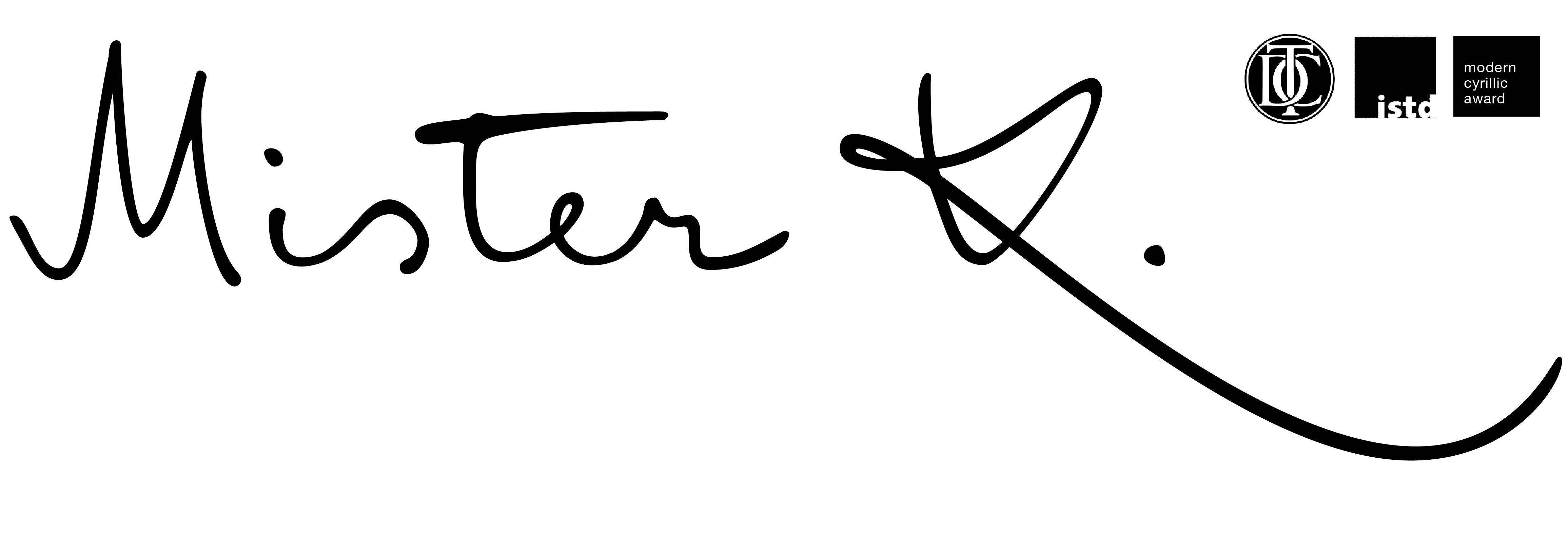
Mister K – the Franz Kafka Font
Mister K
Typeface Inspired by Franz Kafka
The FF Mister K type family originated in the manuscripts of Austro-Hungarian writer Franz Kafka (1883–1924). The name “Mister K” comes from the main characters of the novels “The Castle” and “The Trial”. Kafka had a very expressive handwriting with strong calligraphic features. The different fonts in the Mister K family reflect different moods and stages in the writer's handwriting style. All Mister K text fonts offer advanced typographic support with OT features such as alternate characters, ligatures, case-sensitive forms, fractions, superscripts and subscripts, and stylistic alternates.
FF Mister K typeface – The Core Font Styles
Mister K Regular is similar to the writing we can find in Franz Kafka‘s first drafts for the story “Metamorphosis” and the novel “The Trial”. It is a fluently connected script with frequent form variations due to an abundance of characteristic ligatures. Its look and feel is much that of a working typeface and it has only few obviously decorative elements.
In Mister K Onstage the calligraphic features are more emphasized than the Regular. Its glyphs have more contrast, they are less connected and as an option the style contains swashes for the capitals and the word endings.
FF Mister K Crossout contains every character in a crossed out version. By selecting it the user can cross out long stetches of text written with the Regular or Onstage. The effect reminds of some pages in Kafka’s manuscripts where he was obviously stuggling to find the best solution.
Kafka book series by Peter Mendelsund, for the publishing house Schocken
Franz Kafka Series by Schocken. Peter Mendelsund designed these covers for a series of Kafka pocket books. His compositions with their bright colors, powerful illustrations and headlines set in FF Mister K received a very positive echo.
Working with the manuscripts
Connected Font: FF Mister K OpenType Features
All FF Mister K fonts have OpenType features that define the behaviour of the fonts in different contexts. Most of the coding for this is in the liga and calt features. In general, it is best to leave these features on - as they are by default - as the glyph connections will work best and the overall impression will be closest to Kafka's writing styles.
Mister K Regular sample with contextual alternates and standard ligatures turned on.
Activation of Stylistic Set (InDesign) or Stylistic Alternates (Illustrator, Photoshop) leads to a set of simple, disconnected characters. They are meant mainly for abbreviations, names in all caps, formulas etc.
To ensure that glyph connections look natural FF Mister K is equipped with many alternates for one and the same character. Here some ‘a’ alternates for word beginnings and endings, medium and low connections or deliberate disconnections.
Of course: On the computer you can write without mistakes. But mistakes are human, and with Mister K you can purposely show them, as well as your corrections. See below how it’s done. The editing marks shown are available for all FF Mister K text fonts.
Crossing out a word with FF Mister K
To cross out a word hit emdash repeatedly.
Striking through a word with FF Mister K
To stike through a word hit endash repeatedly.
Creating a wavy underline with FF Mister K
To create a wavy underline hit almost equal repeatedly.
Creating a single underline with FF Mister K
To create a single underline hit underscore repeatedly.
Creating a double underline with FF Mister K
To create a double underline hit equal repeatedly.
Kafka quote set in FF Mister K Regular font
Sample of Mister K Regular Cyrillic
FF Mister K Regular and FF Mister K Informal have an extended Cyrillic character set. Here a quote from Kafka’s “Investigations of a Dog” in Ukrainian translation – set in Mister K Regular.
Mister K Font In Use
Mister K for Berlin Design Hotel “Das Stue”
Mister K has many friends. Among them top-notch Berlin Hotel “Das Stue”. Photo by “Das Stue”.
Mister K for Design Hotel “Das Stue” in Berlin, the stationary
Design Hotel “Das Stue” in Berlin, stationary
FF Mister K in an exhibition about artistic Kafka books at the German National Library, Leipzig.
FF Mister K playing a home match in an exhibition about artistic Kafka books at the German National Library, Leipzig.
Award-Winning Font Family
Mister K type family members received a Certificate of Typographic Excellence at the Moscow Modern Cyrillic Competition, an ISTD Premier Award in London and a TDC Award at the New York Type Directors Club Typeface Design Competition.